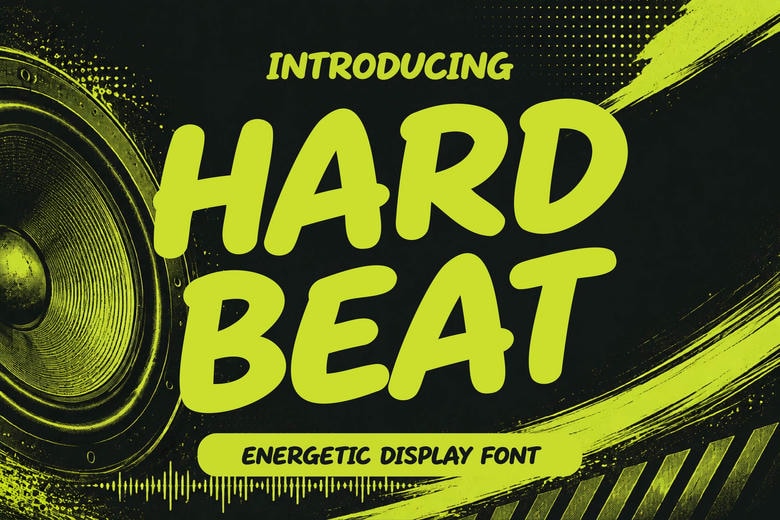
Hard Beat Font
Hard Beat is a lively display font with bold, dynamic letters that add rhythm and energy to your designs. It works well for music posters, album covers, streetwear, sports graphics, branding, headlines, events, and other energetic promotions.
Hard Beat Display Font